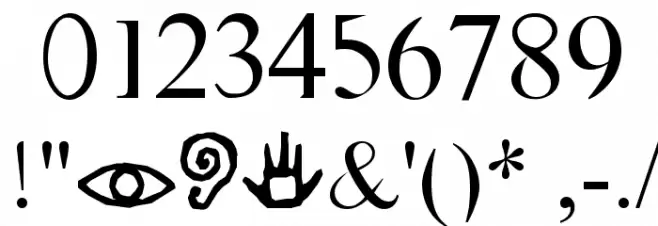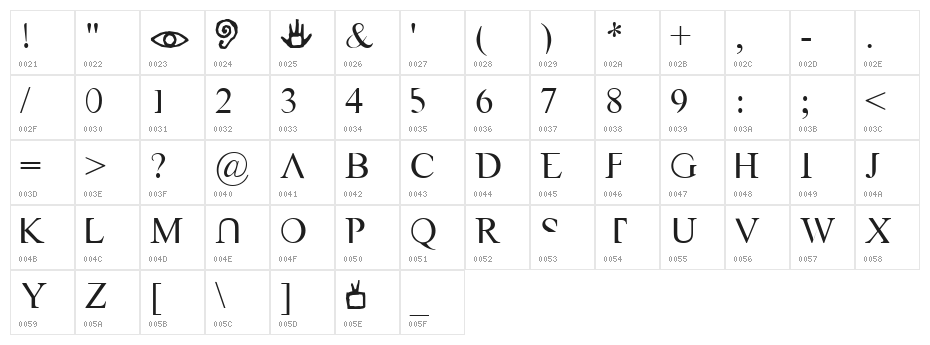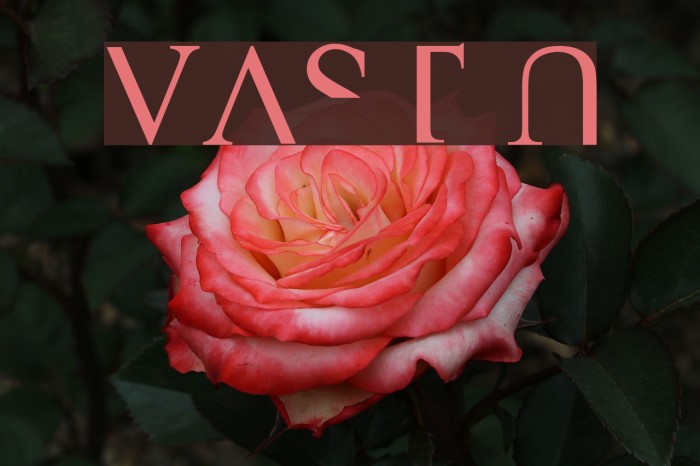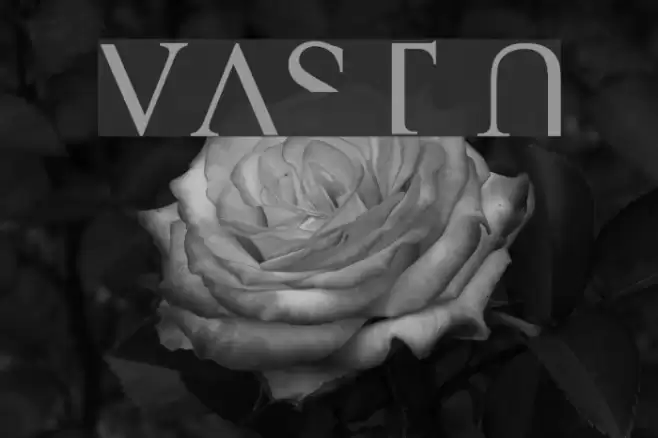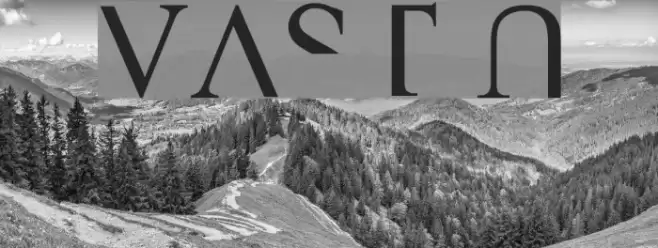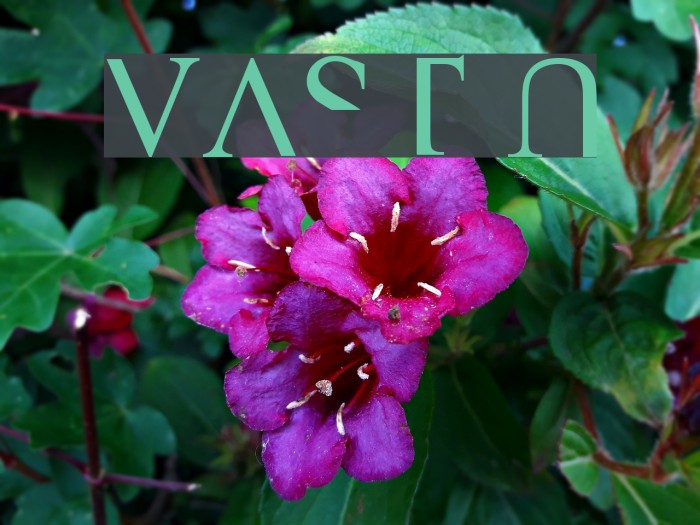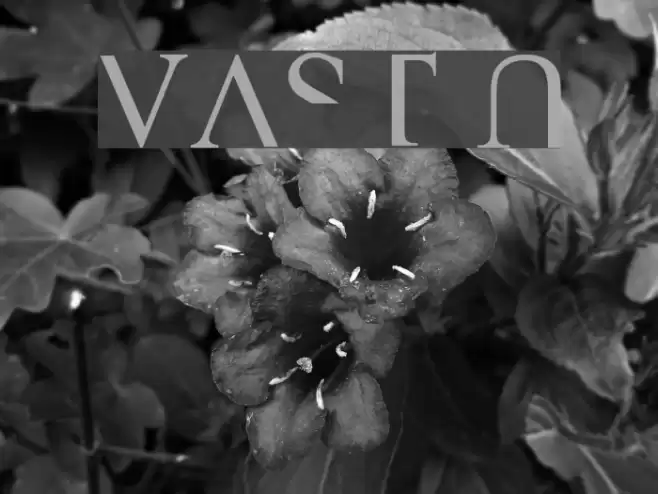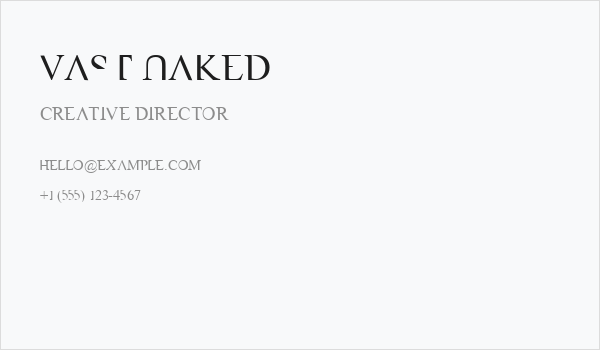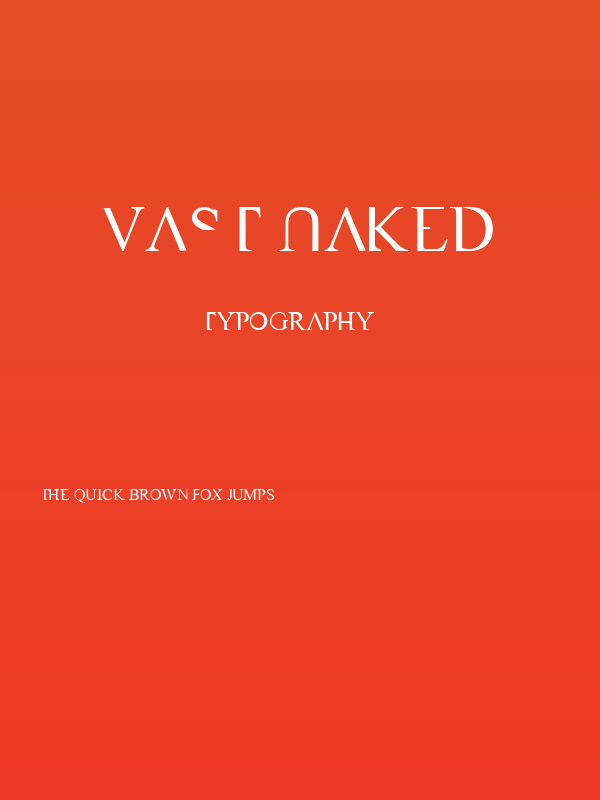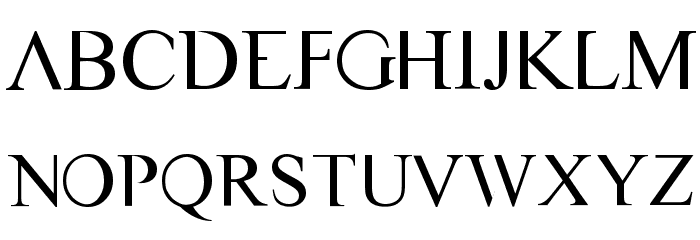
VAST Naked Font
VAST Naked Description
This font features a unique blend of modern and classic elements, characterized by its sharp serifs and clean lines. The uppercase letters exhibit a strong presence with a slightly condensed form, while the lowercase letters maintain a consistent style that complements the uppercase. The numerals are distinct and easily readable, making them suitable for various applications. Special characters are creatively designed, adding a decorative touch without compromising legibility. The overall aesthetic is both sophisticated and versatile, making it ideal for a range of design projects.